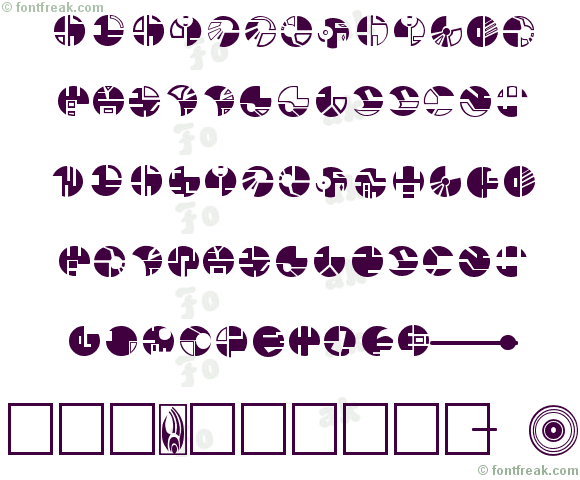
Borg
Borg — Character Map
About Borg
The Borg font, designed by Tommy Of Escondido, is a striking display typeface that captures the essence of science fiction with its unique aesthetic inspired by the iconic "Star Trek" franchise. This freeware font stands out for its bold, geometric shapes and distinctive character design, making it an excellent choice for creative projects that require a futuristic touch. The font features a medium stroke weight with a subtle contrast that allows for legibility while maintaining a captivating presence. Its evenly spaced characters add to the overall clarity, making it suitable for both headlines and body text.
The Borg font is ideal for a variety of applications, including movie posters that aim to evoke a sense of adventure and exploration. Its distinctive style also makes it a perfect fit for video game designs, particularly those in the sci-fi genre. Additionally, it can be used effectively in promotional materials for conventions or events centered around science fiction themes. Graphic designers will find it particularly appealing for creating eye-catching branding elements, while content creators can harness its charm to enhance their digital projects.
Targeted at graphic designers, small business owners, and content creators, the Borg font offers versatility and a unique flair that can elevate any design. Best of all, it is available for free download, encouraging users to consider supporting charity initiatives. The Borg font stands out not just for its visual appeal but also for its connection to a beloved cultural phenomenon. Its clean lines and distinctive character set make it a memorable choice for anyone looking to infuse a bit of sci-fi magic into their work. Don't miss the opportunity to add this captivating typeface to your collection with the Borg font free download.